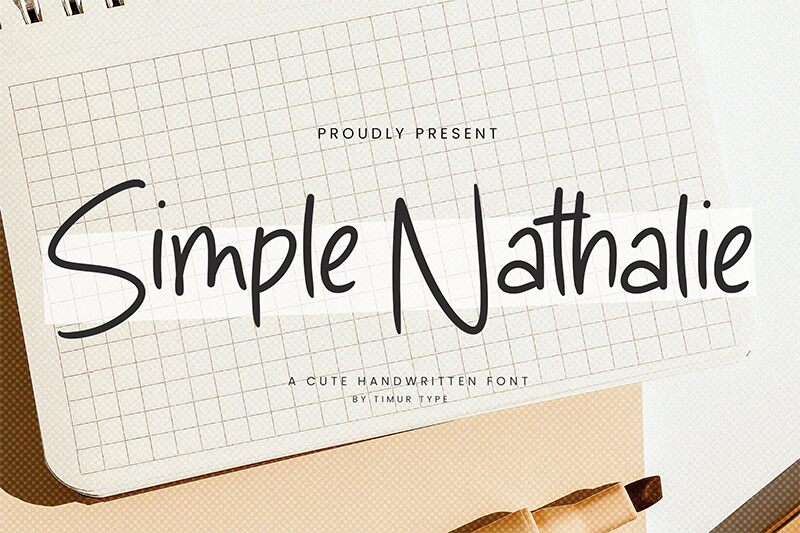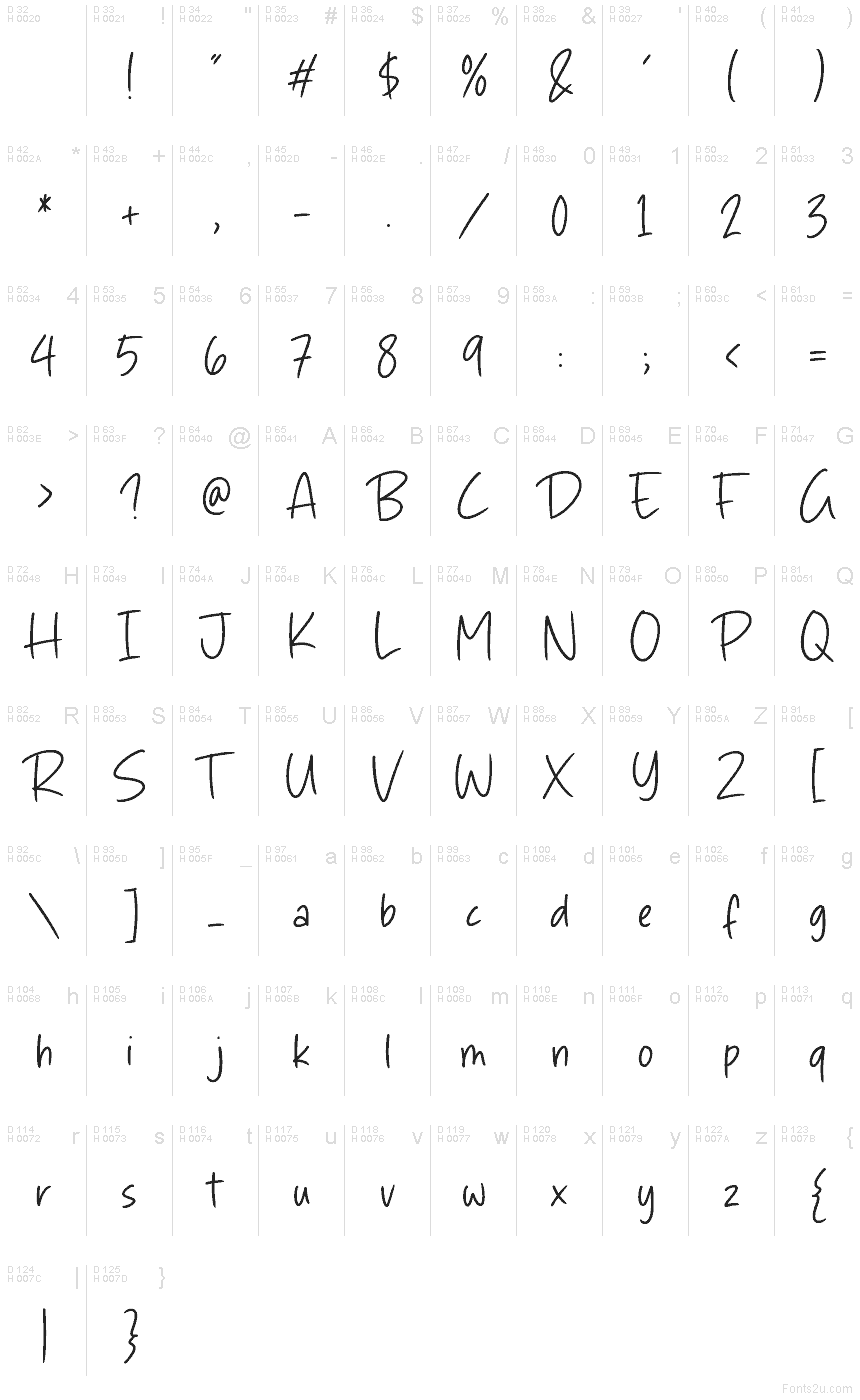
Simple Nathalie
Simple Nathalie font by Timur Type is a free handwritten font with an easy, doodled charm that feels like it was jotted in a favorite notebook. Its tall, slightly wobbly strokes and rounded curves give words a gentle, friendly sway—casual but still readable. The light, inky texture keeps it from feeling heavy, so it adds sweetness without overpowering your layout.
Using Simple Nathalie, you can bring a cozy, human touch to greeting cards, kids’ book titles, classroom posters, stickers, social media quotes, and playful branding. This free font shines when used large for headings, paired with a clean sans serif for body text to keep things clear and balanced.
Simple Nathalie Font also supports multilingualism.